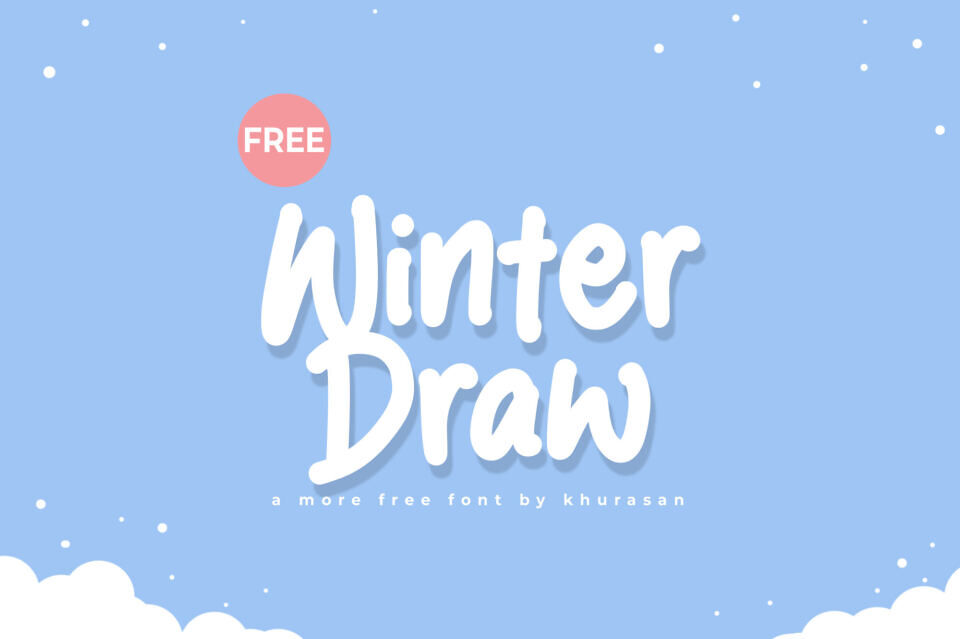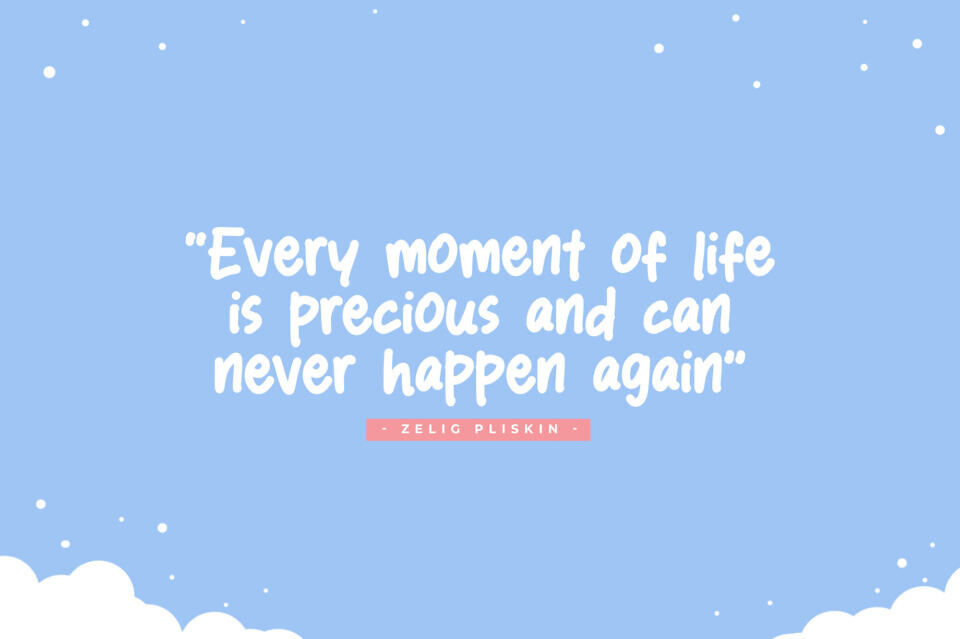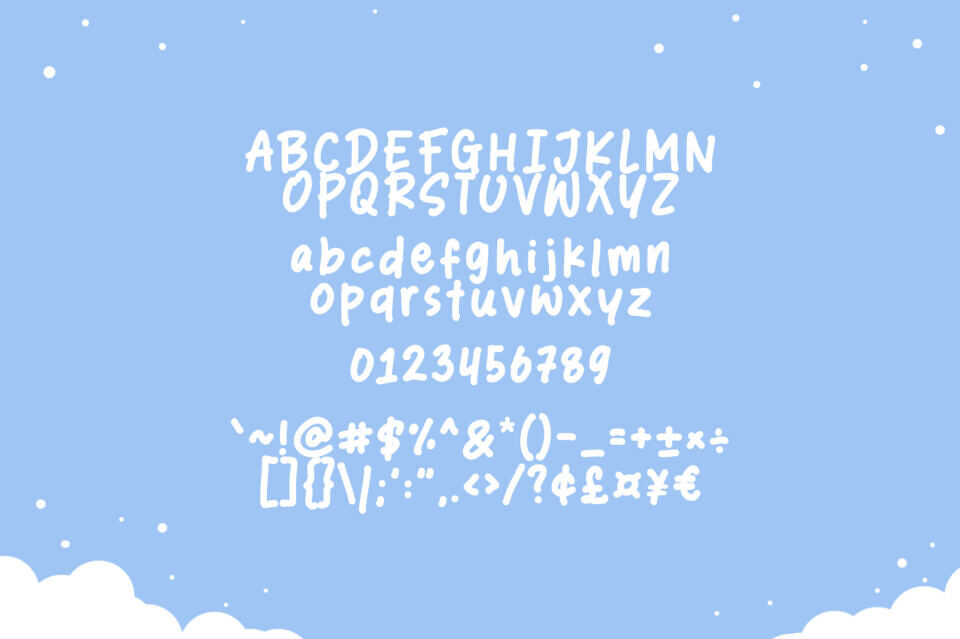
Capture the crisp, artistic spirit of the season with the Winter Draw font, a brush-style handwritten typeface that balances elegance with a casual, hand-crafted feel.
The Winter Draw typeface features fluid, slightly textured strokes that mimic the natural movement of a marker on paper, making it an exceptional choice for seasonal branding, holiday greeting cards, and cozy lifestyle photography overlays.